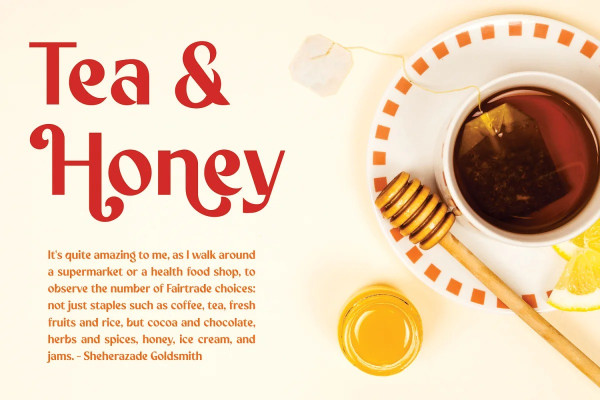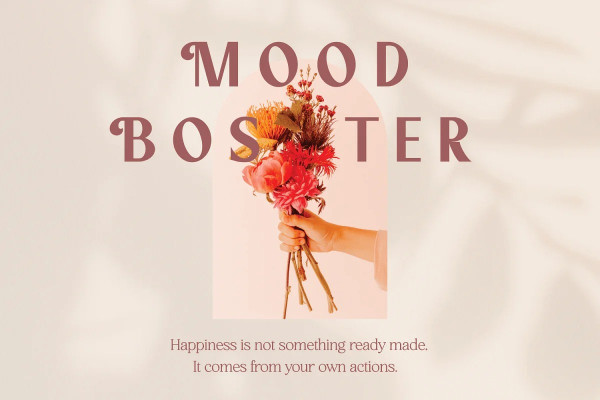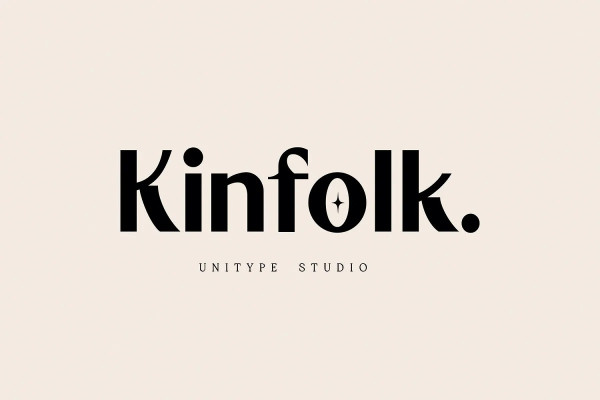
Kinfolk Font
Kinfolk Font – sans-serif font. The perfect choice for designers and creatives looking to add a modern, minimalistic touch to their projects. Crafted with precision and attention to detail, our sans-serif font offers a clean and stylish look that will elevate your designs to the next level. With its versatile design and legibility, it’s ideal for a wide range of projects, including logos, branding, web design, and print materials.
This sans-serif font comes in a variety of weights and styles, giving you the flexibility to choose the perfect one for your project. From bold and impactful to light and airy, this font will suit any design style and aesthetic. Its clean and sharp lines make it easy to read, while its subtle details add character and personality to your design. Whether you’re looking for a bold headline font or a subtle body text font, this sans-serif font has got you covered.